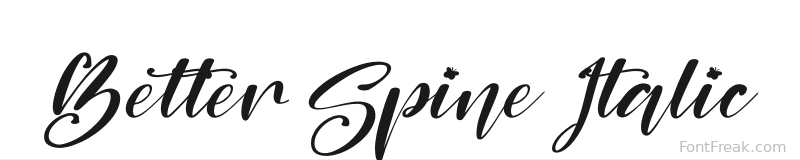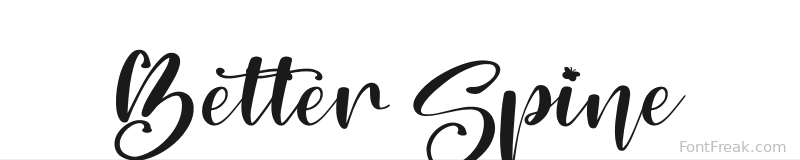
Better Spine
Better Spine Italic
About Better Spine
Better Spine is an elegantly crafted script font by Perspectype Studio, released in 2021 as freeware. This font showcases a fluid, cursive style that captures the essence of handcrafted typography. With its graceful strokes and intricate curves, Better Spine offers an inviting visual appeal, making it a perfect choice for various design projects. The font features a moderate stroke weight with subtle contrast, allowing for legibility while maintaining its artistic flair. The spacing is well-balanced, ensuring that each character stands out, yet harmonizes beautifully with the overall design.
Ideal for use in wedding invitations, Better Spine adds a touch of romance and sophistication, perfect for capturing the essence of special occasions. Its charming aesthetics also make it suitable for restaurant menus, where it can elevate the dining experience by conveying a sense of elegance and attention to detail. Additionally, the font can be effectively used in branding materials for boutique shops, greeting cards, and social media graphics, allowing content creators to convey a personal touch in their work.
Targeted towards graphic designers, small business owners, and content creators, Better Spine provides an excellent resource for those looking to enhance their visual communications. Its versatility and unique style cater to a wide range of creative needs, making it a valuable addition to any designer's toolkit.
What sets Better Spine apart is its ability to blend beauty with functionality. It stands out not only for its aesthetic qualities but also for its usability across various platforms and mediums. Whether you're crafting an elegant invitation or designing a captivating logo, the Better Spine font free download offers an opportunity to elevate your projects with a distinctive flair.